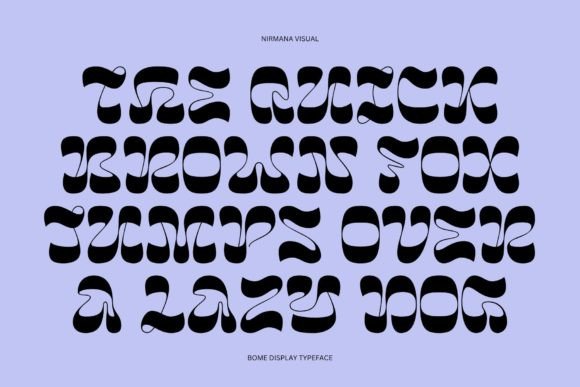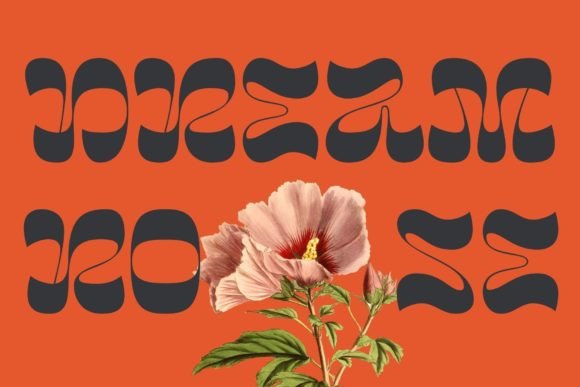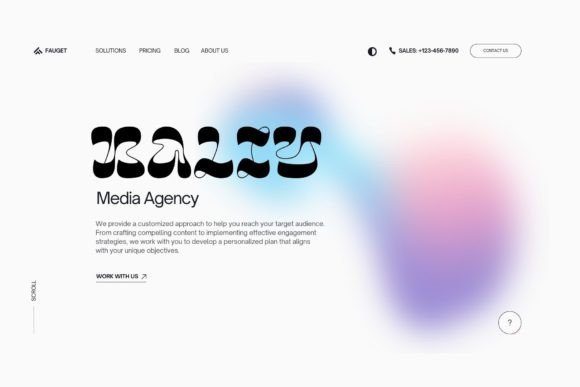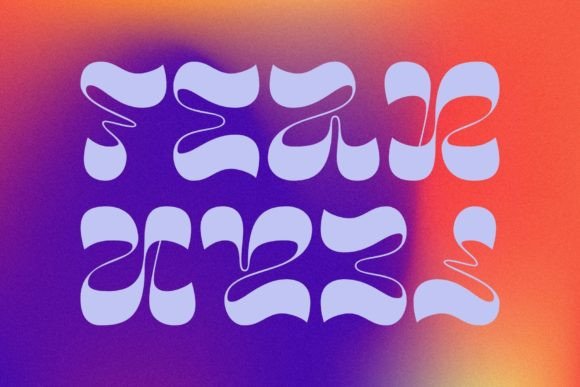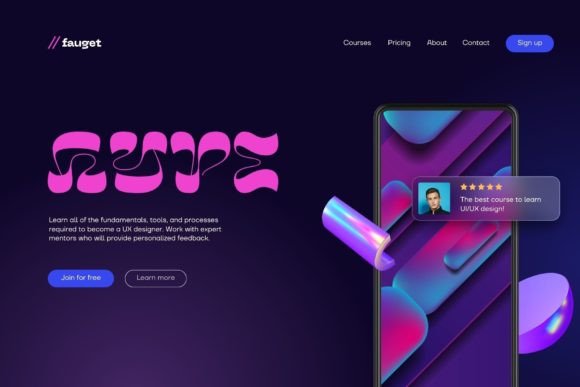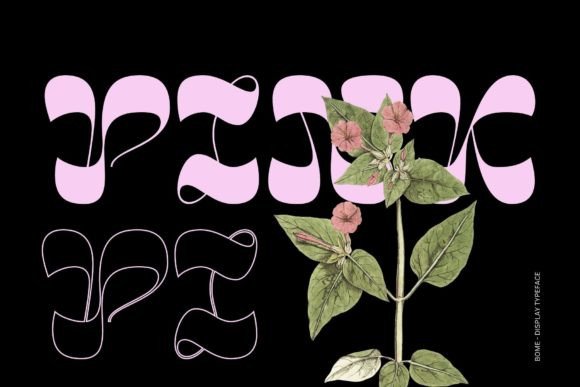
Bome Font: Elevate Your Designs with Modern Typography
In the world of design, typography plays a crucial role in conveying messages, expressing creativity, and building brand identities. A well-chosen font can make all the difference in transforming a design project from ordinary to extraordinary. This is where Bome Font comes into play – a modern display font that has been gaining popularity among designers and crafters for its unique blend of thin and thick lines, offering beautiful typographic harmony.
What is Bome Font?
Bome is a contemporary display font designed to add a touch of elegance and sophistication to various design projects. Its distinctive feature lies in the combination of thin and thick lines, which creates a visually appealing contrast. This font is perfect for designers looking to add a modern twist to their work, whether it’s for logos and branding, social media posts, advertisements, or product designs.
Key Features of Bome Font
- Unique Line Variation: The font’s thin and thick lines create a stunning visual effect, making it stand out in any design.
- Modern Aesthetic: Bome’s sleek and contemporary design ensures it fits perfectly into modern design trends.
- Versatility: Suitable for a wide range of projects, from digital content to print materials.
- Elegant Typographic Harmony: The font’s design ensures that it looks great in both headings and titles, adding a professional touch to any project.
Use Cases for Bome Font
Bome’s versatility makes it an excellent choice for various design projects. Here are some of the most popular use cases:
- Logos and Branding: Create a memorable brand identity with Bome’s unique and modern aesthetic.
- Social Media Posts: Stand out on social media platforms with eye-catching headings and titles.
- Advertisements: Grab attention with Bome’s striking typography, perfect for posters, flyers, and online ads.
- Product Designs: Enhance product packaging, labels, and descriptions with a modern and elegant font.
Why Choose Bome Font?
In a sea of fonts, Bome stands out for several reasons:
- Readability: Despite its stylized design, Bome remains highly readable, making it perfect for both digital and print media.
- Uniqueness: Its distinctive line variation sets it apart from more traditional fonts.
- Easy to Pair: Bome can be easily paired with other fonts for a more complex typography system.
Tips for Using Bome Font Effectively
To get the most out of Bome Font, consider the following tips:
- Experiment with Sizes: Play with different font sizes to emphasize the contrast between thin and thick lines.
- Pair it Wisely: Choose complementary fonts that enhance Bome’s modern aesthetic.
- Consider Line Spacing: Adjust line spacing to improve readability, especially in longer texts.
Bome Font is a powerful tool for designers and crafters looking to elevate their projects with modern typography. Its unique blend of thin and thick lines, combined with its versatility and elegance, makes it an excellent choice for a wide range of design applications. Whether you’re working on a logo, social media content, an advertisement, or product design, Bome is sure to add a touch of sophistication and professionalism. Explore the possibilities of Bome Font today and discover how it can transform your designs.